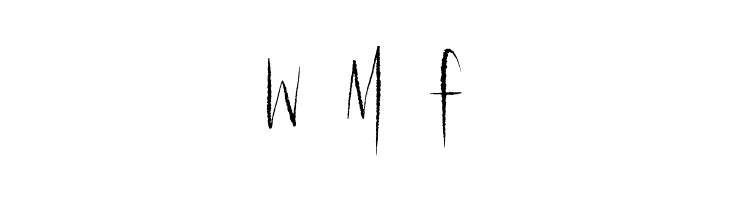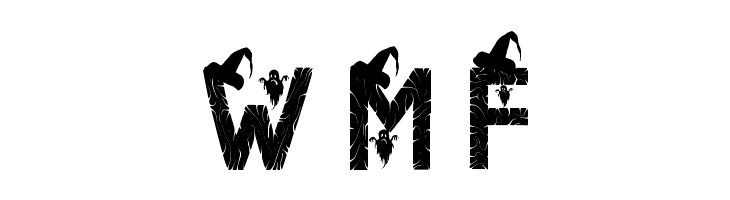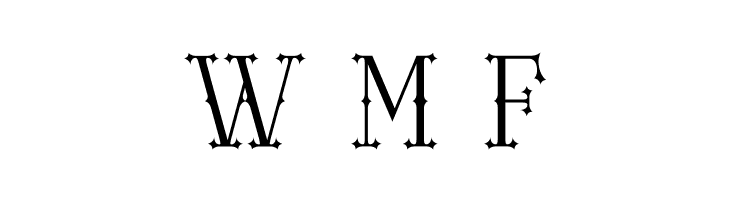
( Fonts by Tokokoo Studio )
A playful, monster-themed font with bold, animated characters.
( Fonts by Perspectype Studio )
A spooky, hand-drawn font with sharp, elongated strokes and a scratchy texture.
( Fonts by Yoga Letter )
A horror-themed, decorative font with thorny edges and devilish motifs.
( Fonts by Storytype Studio )
An ornate, gothic-style font with intricate thorn-like detailing.